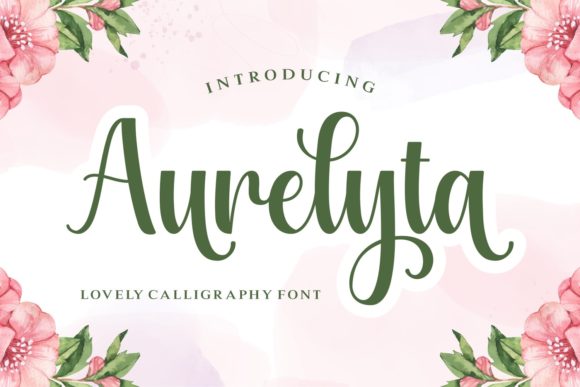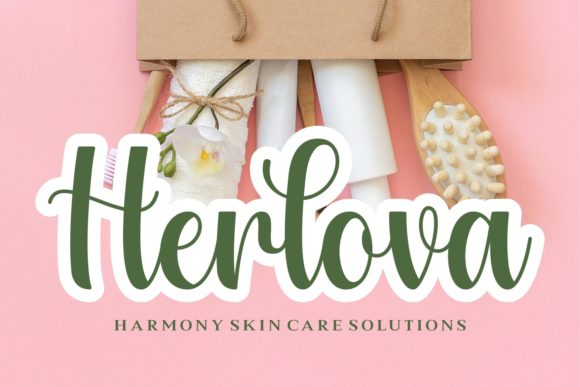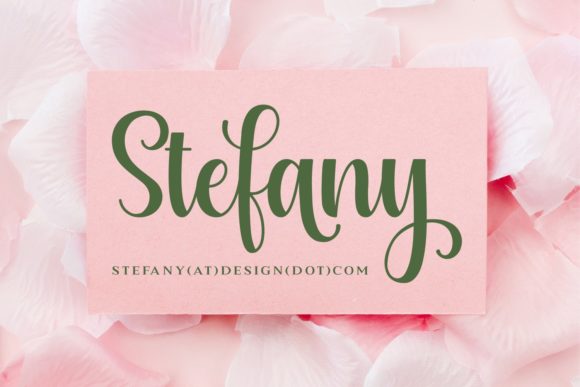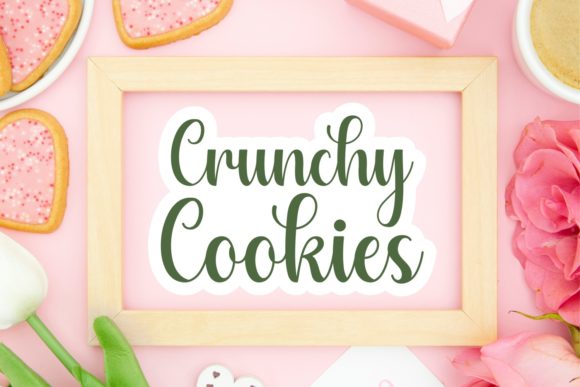
Aurelyta Font
About the Aurelyta Font
Get ready to be inspired by Aurelyta Font, a fresh and dynamic typeface for modern creators. Aurelyta is a lovely calligraphy font with a very romantic touch. This handwritten font is the perfect match for fashion or jewelry branding, wedding cards, birthday decorations, books, wall art, frames, and much more.
Aurelyta’s elegant, romantic style is ideal for projects requiring a touch of delicate sophistication. It excels in headlines, short text blocks, and branding applications where a hand-lettered feel is desired—think invitations, logos for boutiques, or short-form social media content. However, its calligraphic nature makes it less suitable for body text or lengthy paragraphs, as readability can suffer.
Pairing Aurelyta effectively requires considering its delicate nature. A clean, geometric sans-serif like Montserrat would provide a strong contrast and modern edge, balancing its romanticism. Alternatively, a classic serif like Garamond could enhance its sophisticated feel while maintaining legibility. Avoid pairing it with other script fonts, which would create visual clutter.
Aurelyta projects a personality of refined femininity and gentle charm. It’s best suited for brands and projects conveying luxury, artistry, or a sense of personal connection. Its inherent charm works wonderfully for projects needing a touch of vintage or handcrafted aesthetic.
Aurelyta Font Usage Examples
Aurelyta Font Example